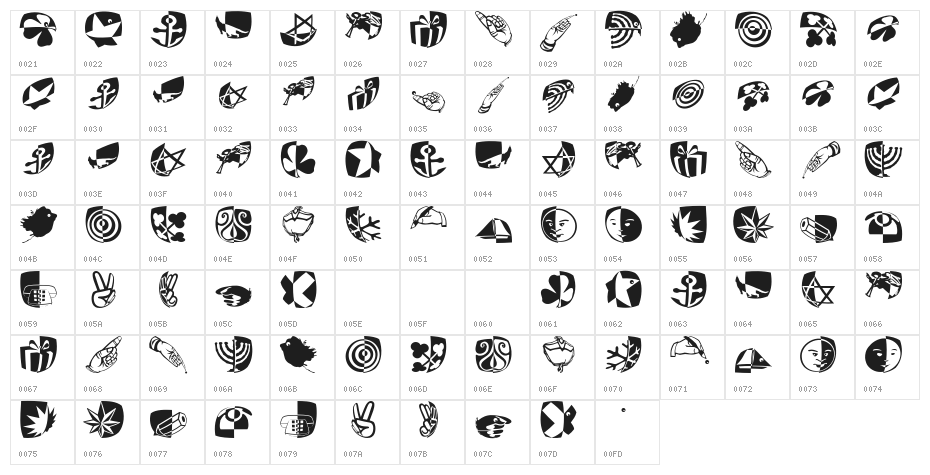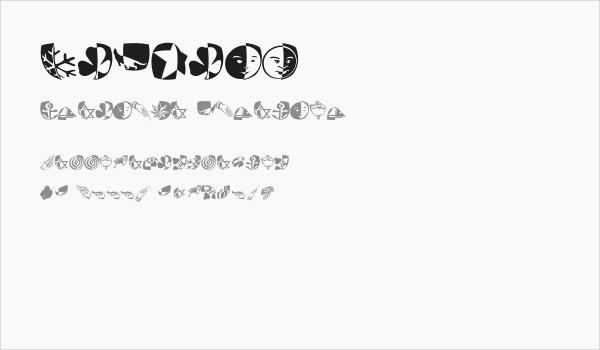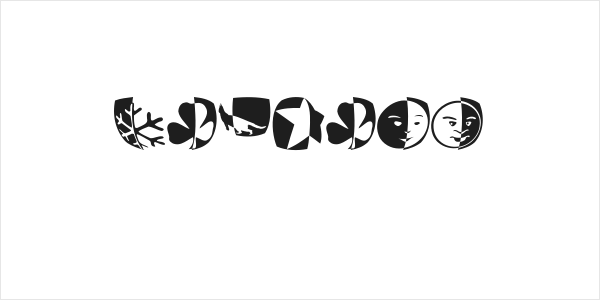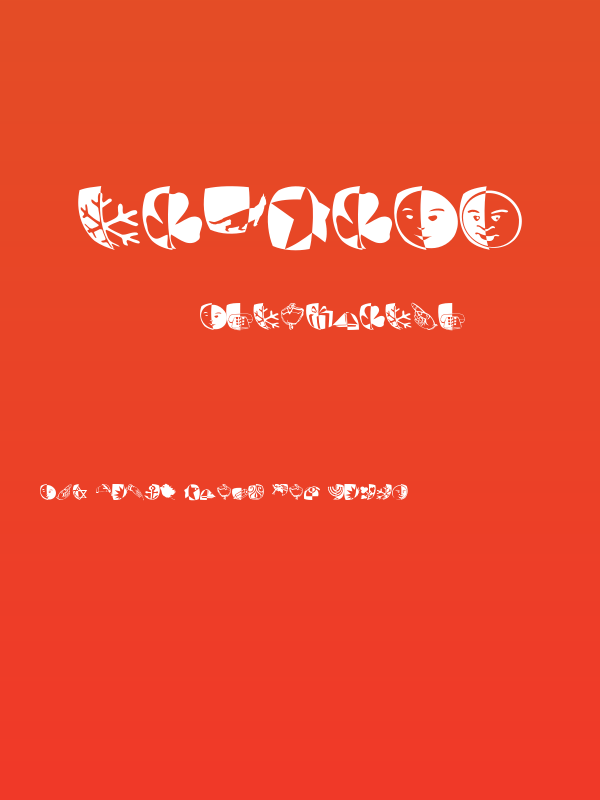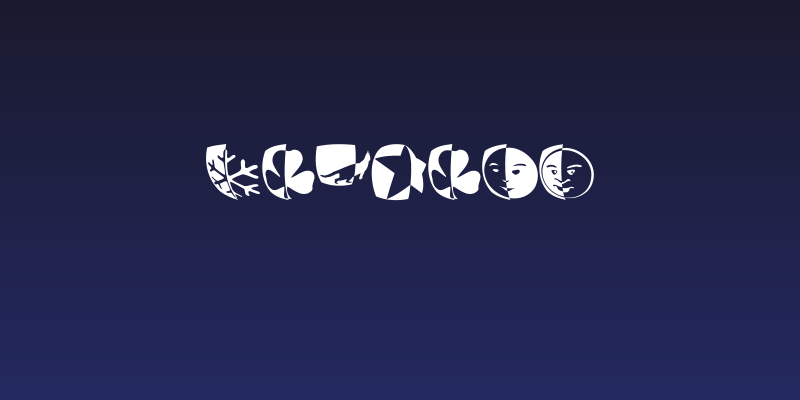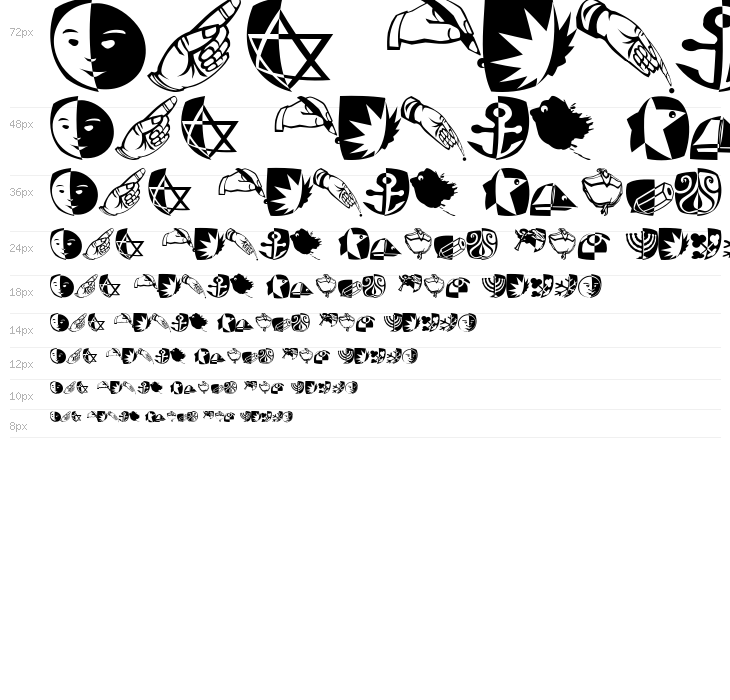
PadBats Font
PadBats Description
This is a decorative font composed entirely of unique symbols and pictograms. Each character is represented by a distinct graphic, ranging from abstract shapes to recognizable objects and symbols. The design is bold and playful, with a strong emphasis on visual impact rather than readability. The characters are densely packed, creating a striking visual texture. This font is ideal for creative projects that require a touch of whimsy and artistic flair. It is not suitable for body text due to its symbolic nature, but it can add a unique element to designs that benefit from a decorative touch.